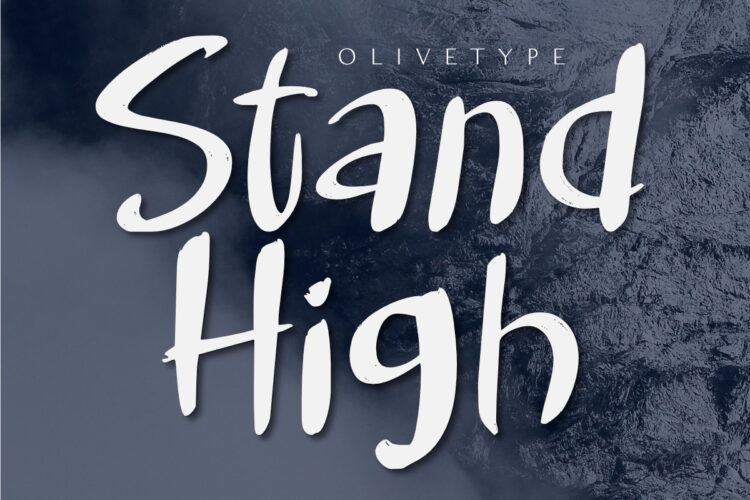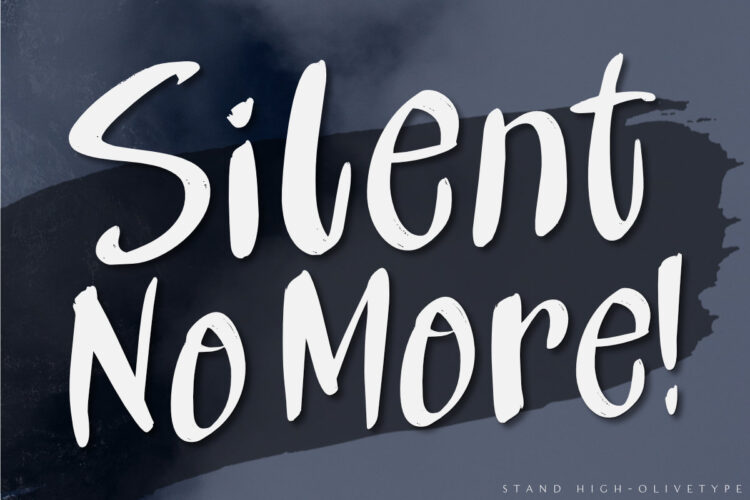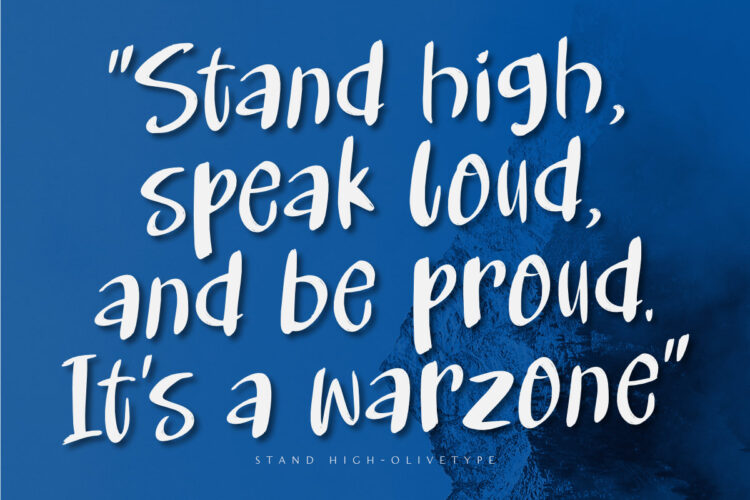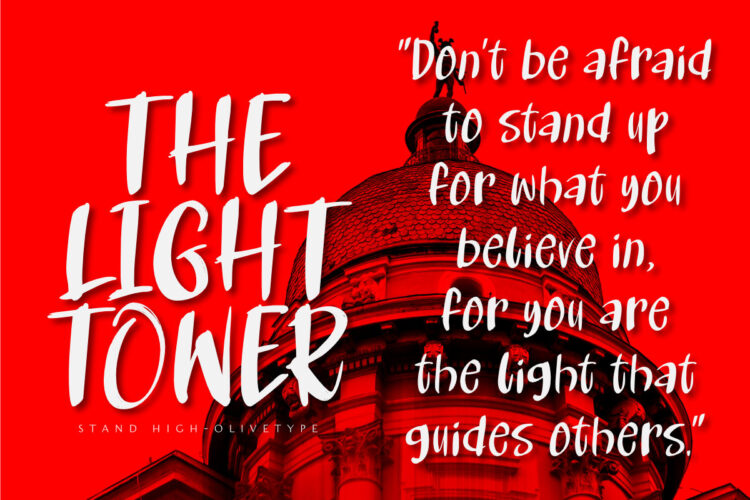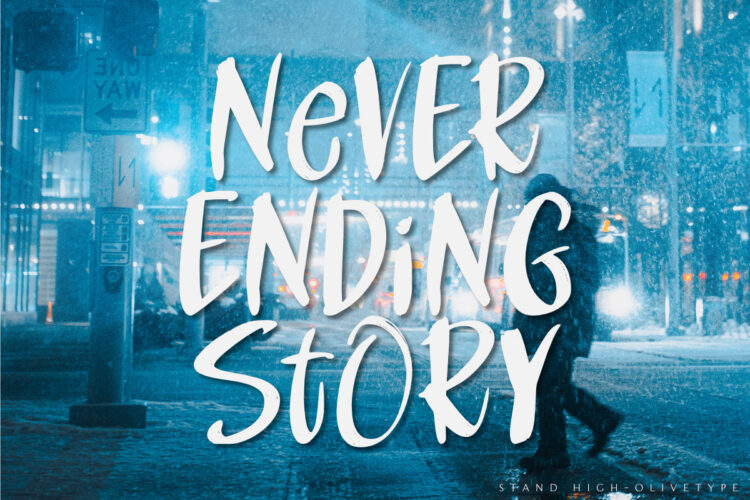
Stand High is a handwritten typeface with an organic, hand-drawn feel. It’s perfect for headlines, movie titles, and other creative applications. With its brush-like strokes and slightly rough texture, Stand High is sure to add an extra touch of personality to your designs.